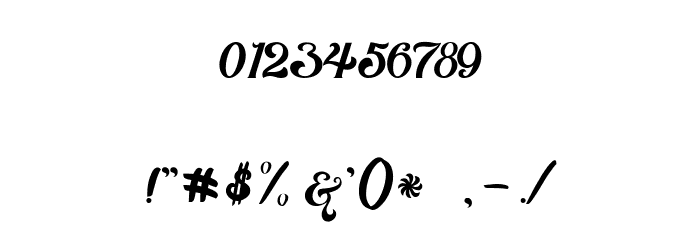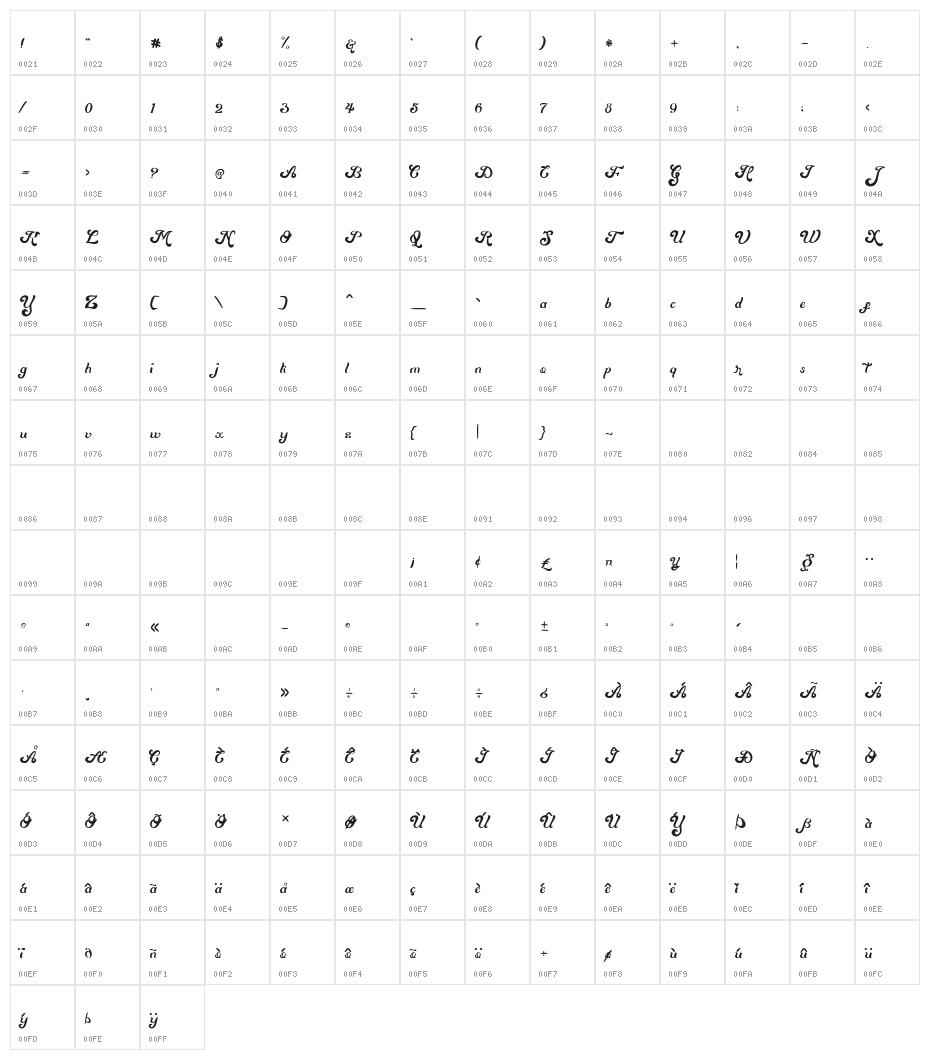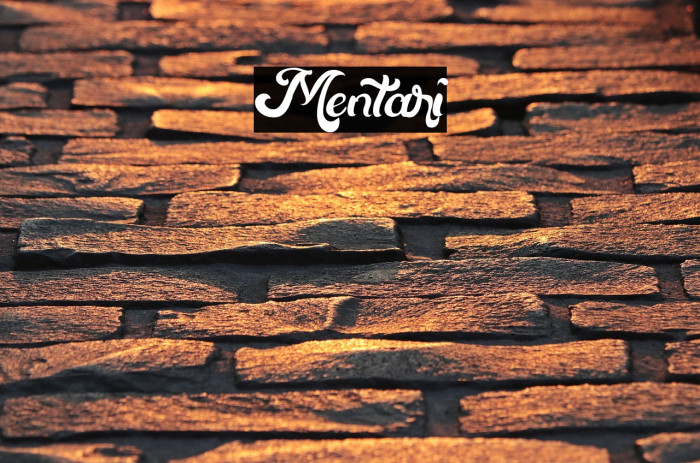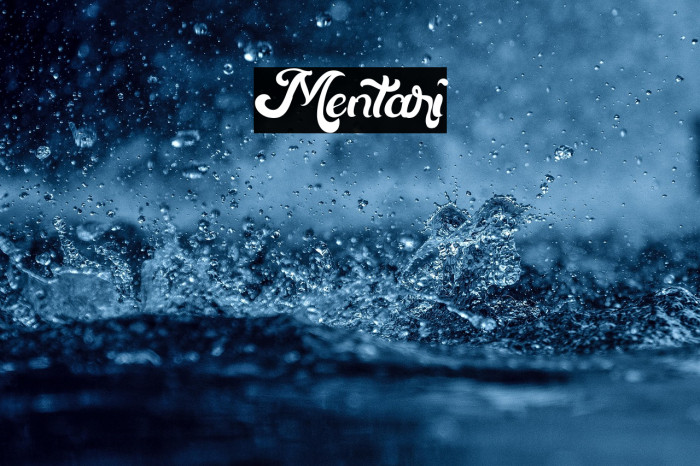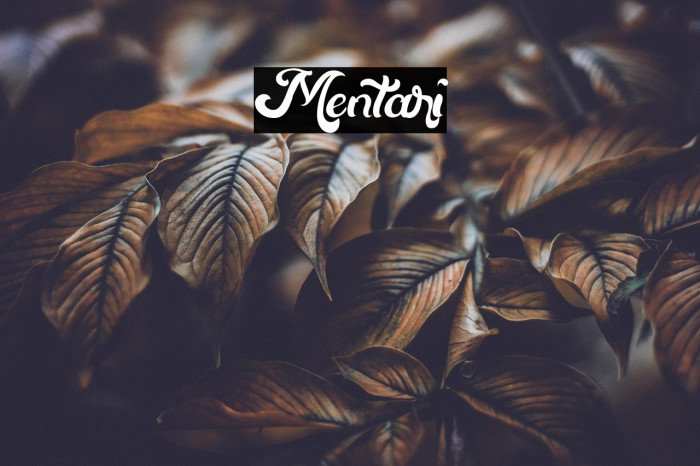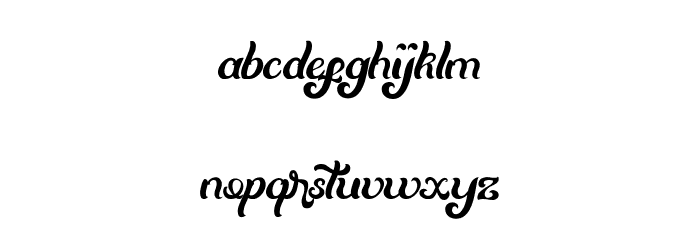
Mentari Font
Mentari Description
This font features an elegant and flowing script style, characterized by its ornate and decorative letterforms. The uppercase letters are bold and intricate, with sweeping curves and flourishes that give a sense of movement and grace. The lowercase letters maintain the same decorative style, with a slightly more compact form that complements the uppercase. The numerals are consistent with the overall design, offering a unique and stylish appearance. Special characters are included, each designed to match the ornate style of the alphabet. This font is perfect for projects that require a touch of sophistication and elegance.